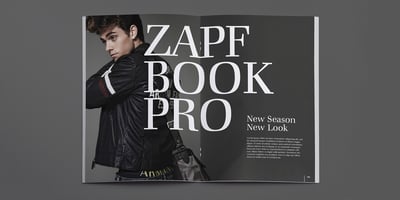
ITC Zapf Book Font Family was designed by Hermann Zapf and published by ITC. ITC Zapf Book contains 8 styles and family package options. Zapf Book font is the work of German designer Hermann Zapf, a blend of the characteristics of Walbaum, Melior and the contrasting weights of Bodoni. It is a typical Zapf font, distinction without eccentricity and superb sensitivity and letterfit, and clearly demonstrates his concern that an alphabet work not just as a collection of single letters, but also have a sense of unity in itself.